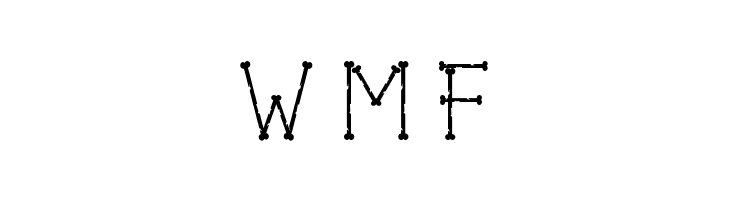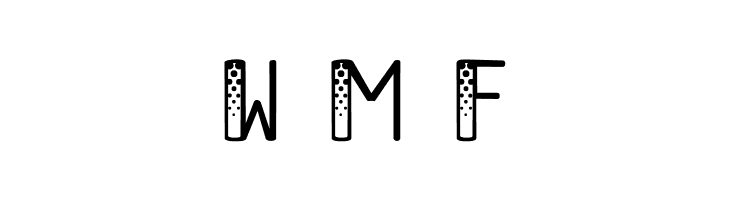
Bird Stencil Design II Font
Ornamental dingbat font with bird and nature stencil designs.
BirdFace Font
A playful, bold font with bird-like design elements and a hand-drawn feel.
Birdies Font
Ornamental font with each glyph as a distinct bird illustration.
BirdsCuts Font
Ornamental font with bird and nature silhouette illustrations.
BIRDTHOPIA Font
A bold, decorative font with playful feather-like accents on each character.
birthday balon tfb Font
A playful font with letters inside balloon shapes, perfect for festive occasions.
Birthday Candles Font
A playful, candle-themed decorative font with polka dots and flames.
Birthdays and Parties Regular Font
A playful, decorative font with characters enclosed in flag-like shapes, ideal for festive designs.
bistort Font
A decorative font with a twisted rope design, perfect for playful and creative projects.
bisturi night club Font
A decorative dotted font ideal for retro and playful designs.
Bit Folder15 [sRB] Font
A pixelated, retro-style font with characters enclosed in squares.
Bitling niks musical Bold Font
A bold, decorative font with whimsical and ornate details.
Bitling niks musical Bold Italic Font
A bold, italicized decorative font with playful curves and artistic flair.
Bitling niks musical Italic Font
A decorative, musical-themed italic font with playful, artistic details.
Bitling niks musical Normal Font
A decorative and ornate font with whimsical embellishments.
BitsNBobs Font
A playful and eclectic font with unique designs for each character.
Bittersweet Font
A playful, whimsical font with elongated, narrow characters and a modern look.
Bizarre Font
A bold, high-contrast font with sharp serifs and elegant flourishes.
Bizarre Black Font